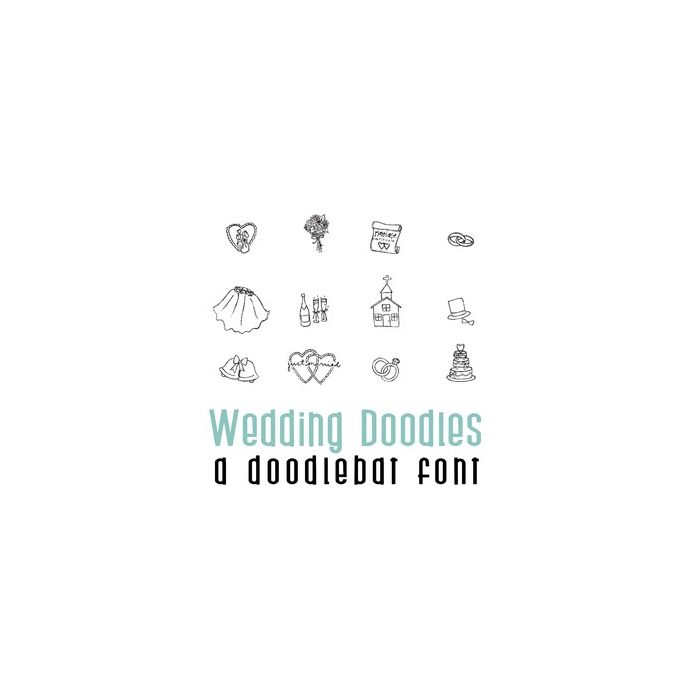
This fun doodlebat font features 26 wedding and love doodle style imagery. Perfect for cards, crafts, gifts, decor, scrapbook pages, planner stickers, and more!